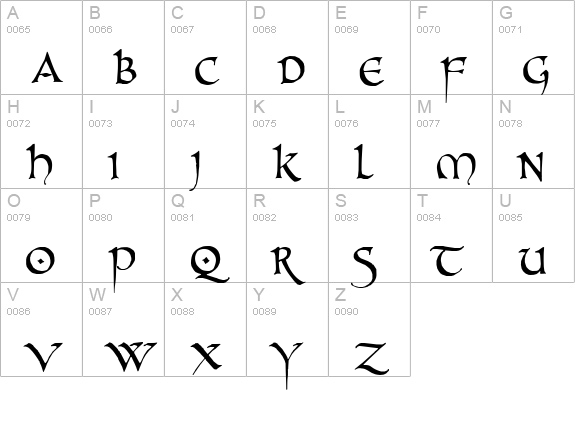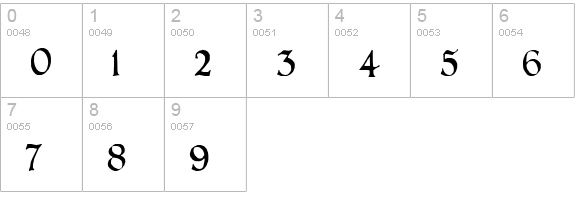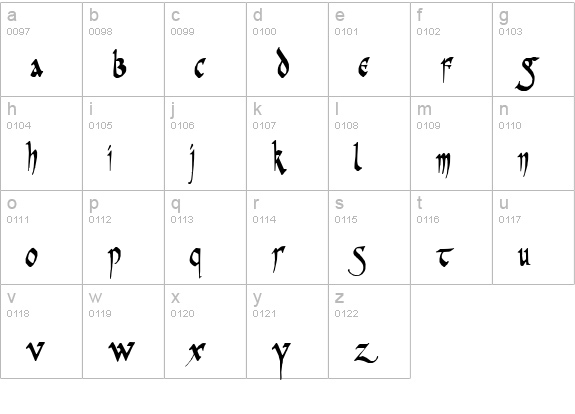
PR Celtic Narrow Font Details
PR Celtic Narrow is a distinctive, condensed-width variant in the PR typeface family \xE2\x80\x94 well suited to design and typography projects.
PR Celtic Narrow is a unique and elegant font that exudes a sense of Celtic charm and sophistication. Its slender and intricate letterforms make it a perfect choice for projects that require a touch of old-world mystique and heritage. The font's delicate lines and ornate details add a touch of elegance to any design, whether it be for invitations, logos, or branding materials. What sets PR Celtic Narrow apart is not just its exquisite design, but also the fact that it is freely available for download at FontsMarket.com. This means that you can easily access this stunning font and incorporate it into your projects without any cost. With its timeless appeal and versatile usage, PR Celtic Narrow is sure to elevate your designs and captivate your audience. Download it today and add a touch of Celtic magic to your creations.